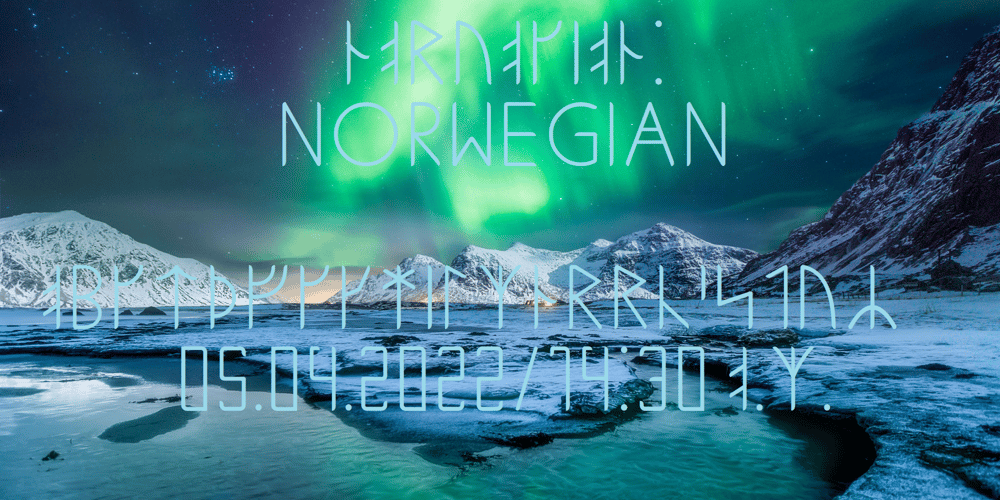
Ongunkan Norwegian Futhark
Ongunkan Norwegian Futhark font
Ongunkan Norwegian Futhark Font Family was designed by Osman Nuri ALKAN and published by Runic World Tamgacı. Ongunkan Norwegian Futhark contains 1 styles and family package options. THE NORWEGIAN RUNESThe oldest runes discovered in Norway date from 400 AD. They were based upon the 24 – rune Elder Futhark of Germanic origin. Two of the runes in the Elder Futhark, Pertra and Eoh, have never been found in any Norwegian rune text.From 550 AD to 700 AD there was a transition period between the older 24-rune Futhark and the newer 16-rune Futharks. By the end of this period, the 24-rune Futhark went completely out of use and the 16-rune Futharks had prevailed.Then, about 900 AD, the Shorttwiggs-runes were introduced from Sweden. Shortly thereafter, from 1000 AD, Futharks with more than 16 runes became more prevalent, as these were more consistent with the Latin alphabet. These types of runes were used in Norway up to 1800 AD.